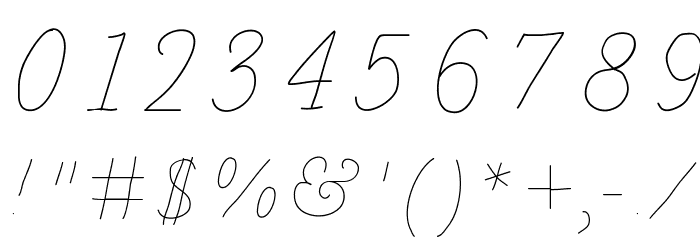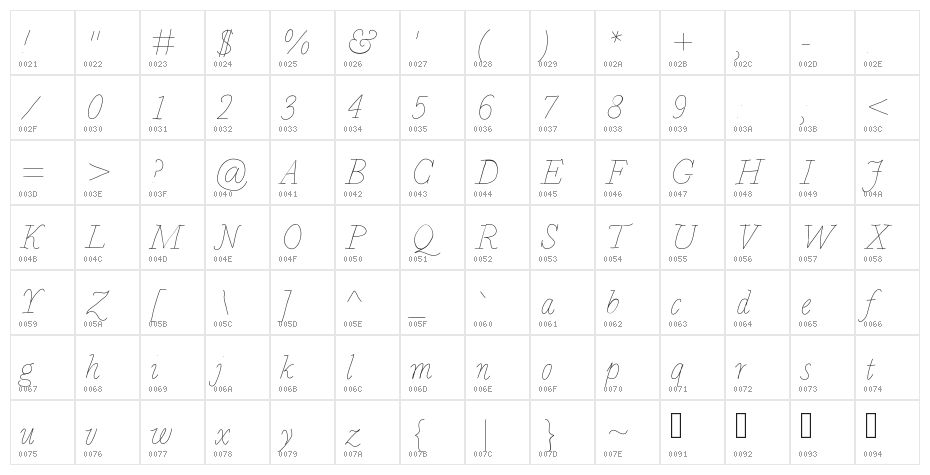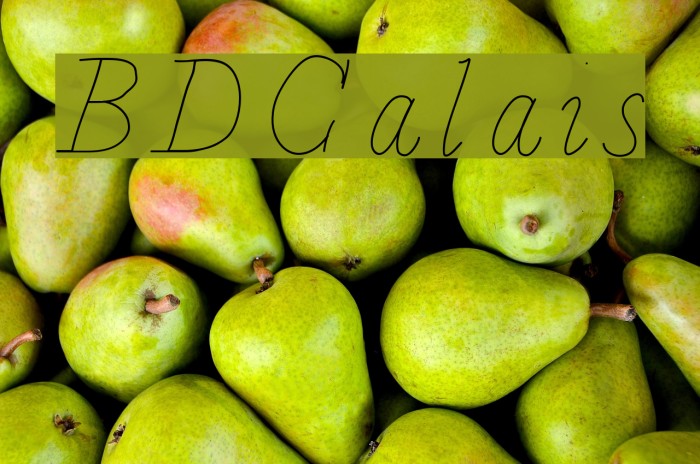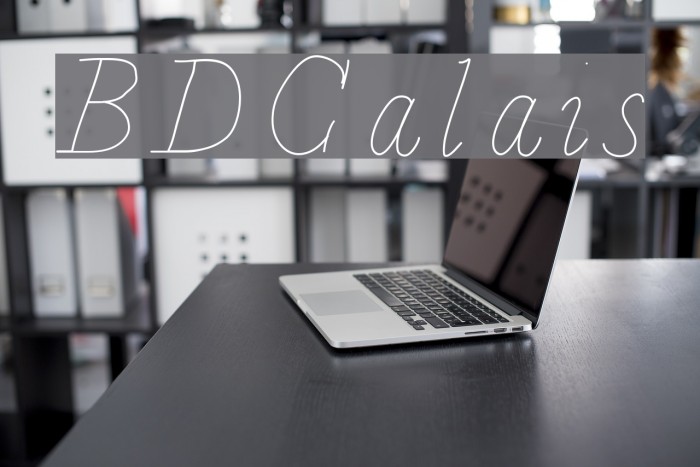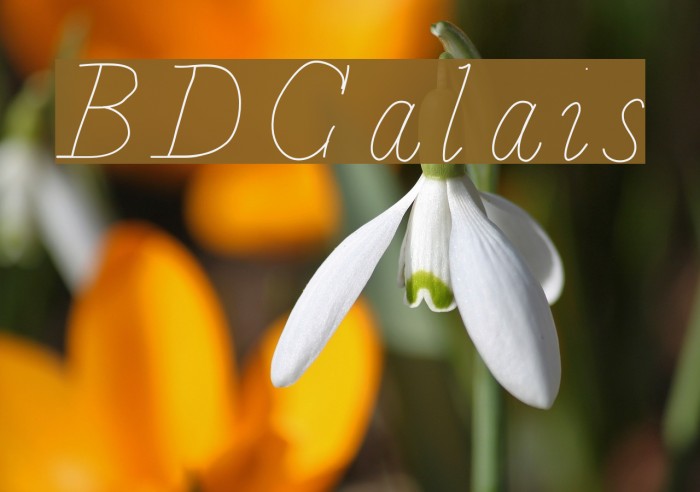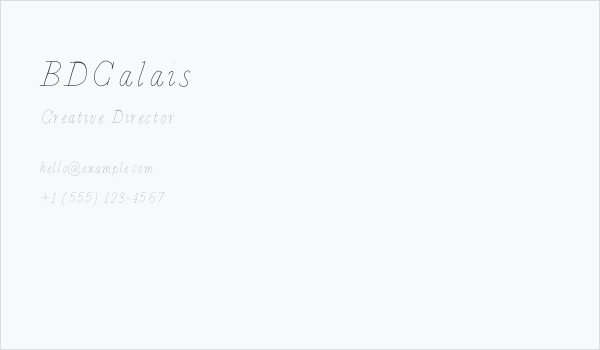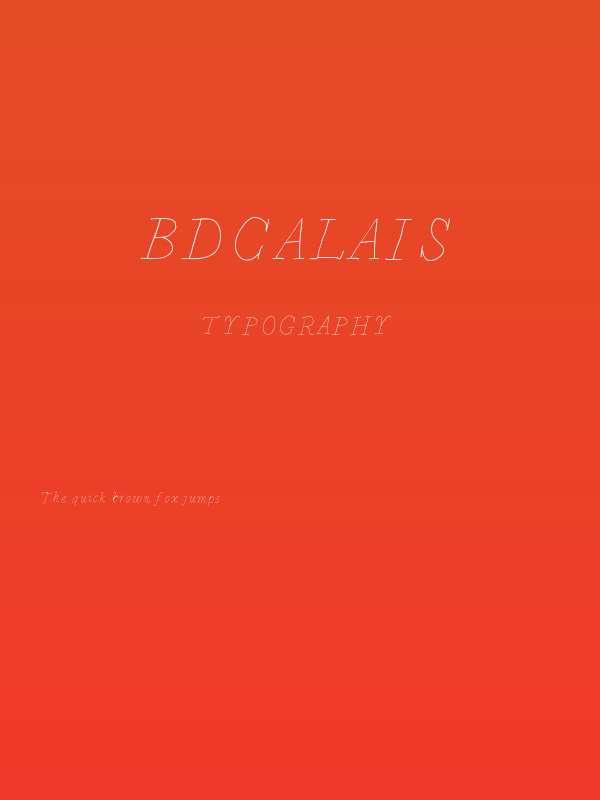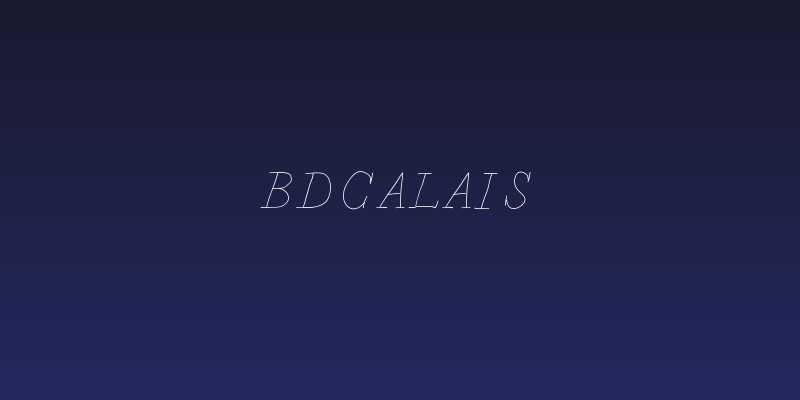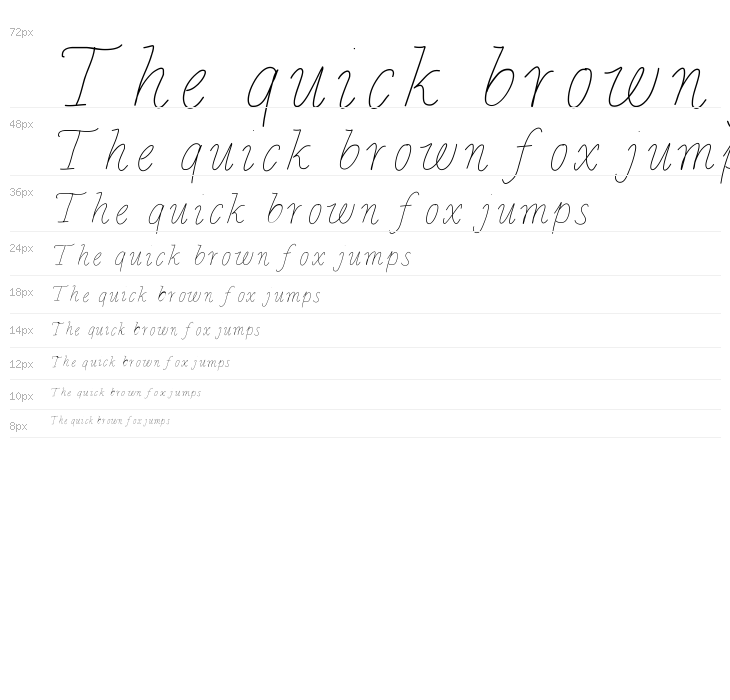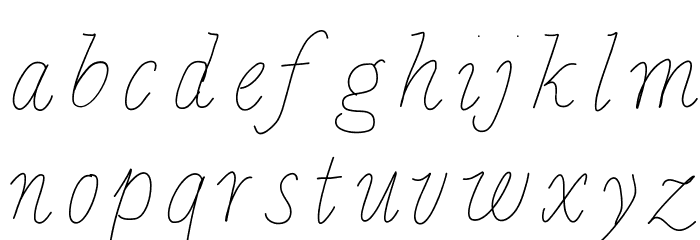
BDCalais Font
BDCalais Description
This elegant script font features a refined and sophisticated style, characterized by its flowing, cursive letterforms. The uppercase letters are slightly more formal, with graceful curves and a slight slant, while the lowercase letters maintain a consistent fluidity that enhances readability. The numerals and special characters are designed to complement the overall aesthetic, with a delicate balance between formality and artistic flair. The thin strokes and gentle curves give it a light, airy feel, making it suitable for a variety of applications where elegance and readability are desired.